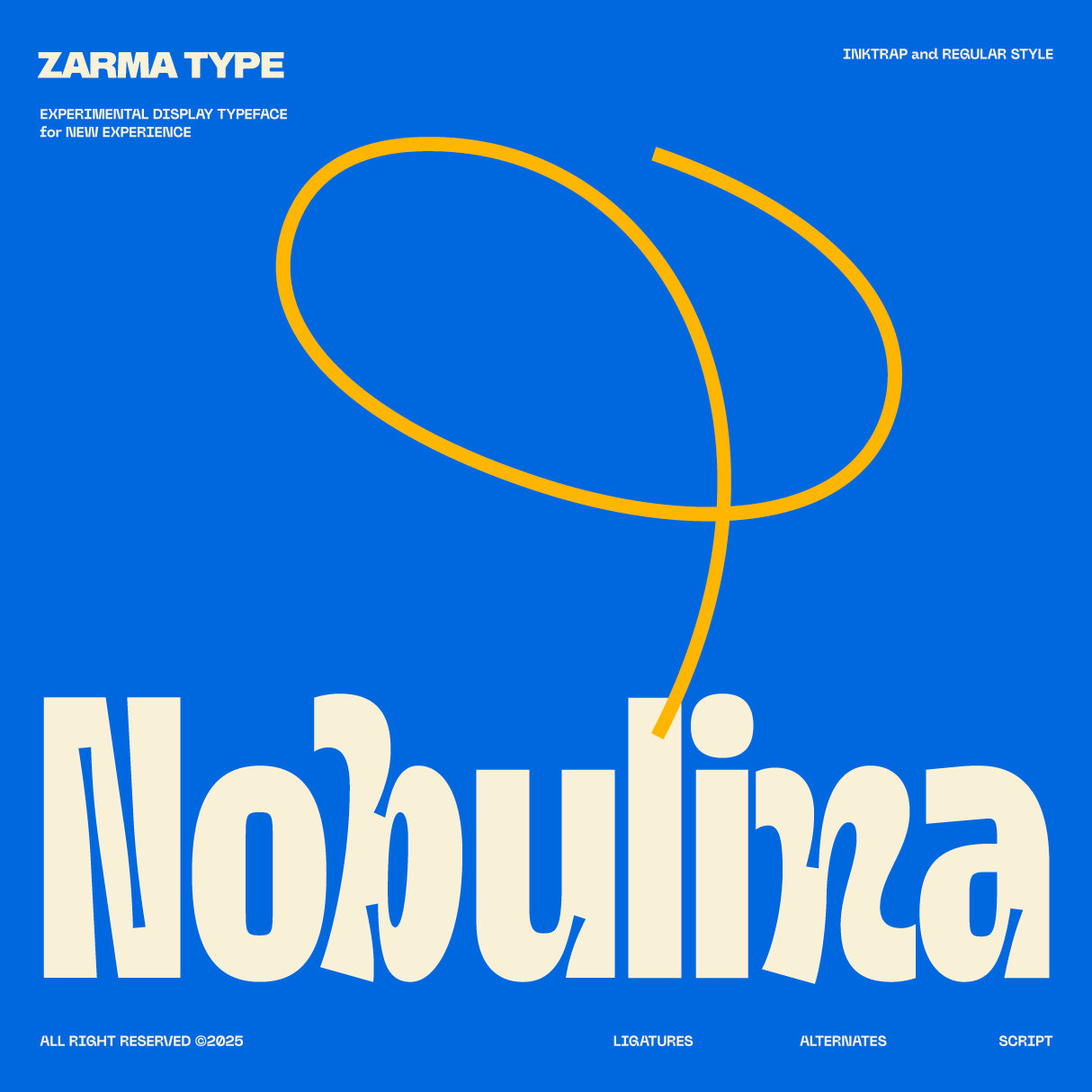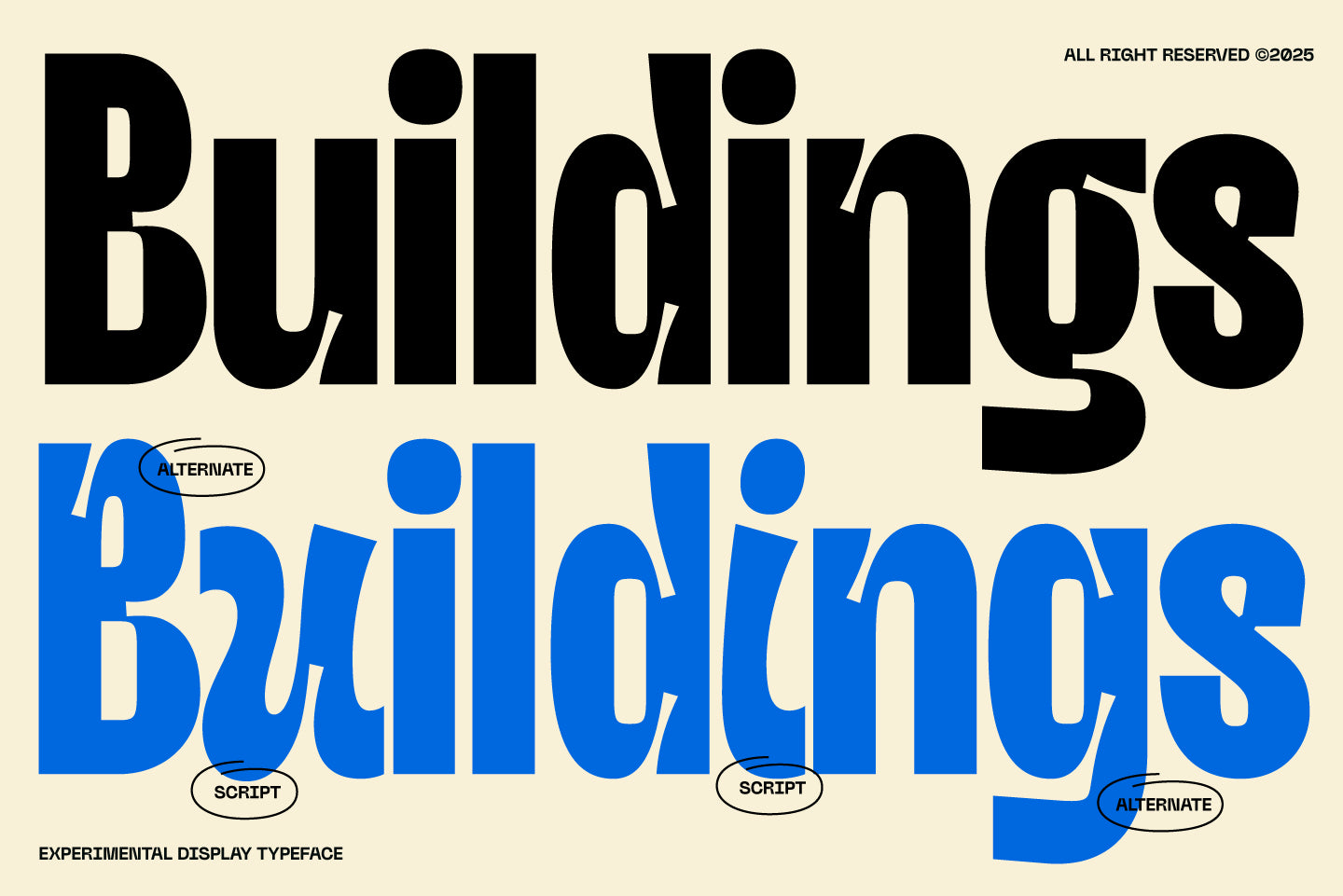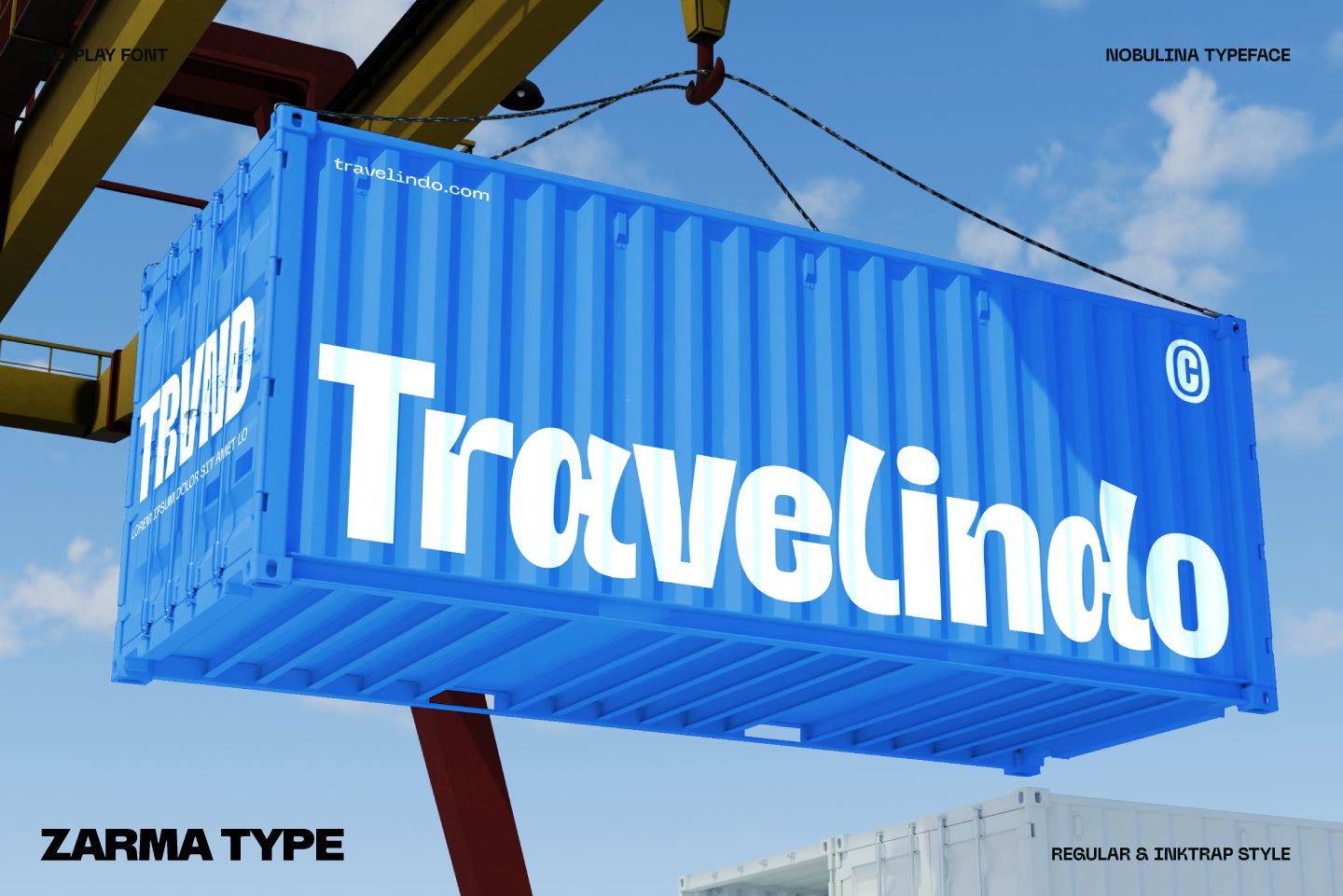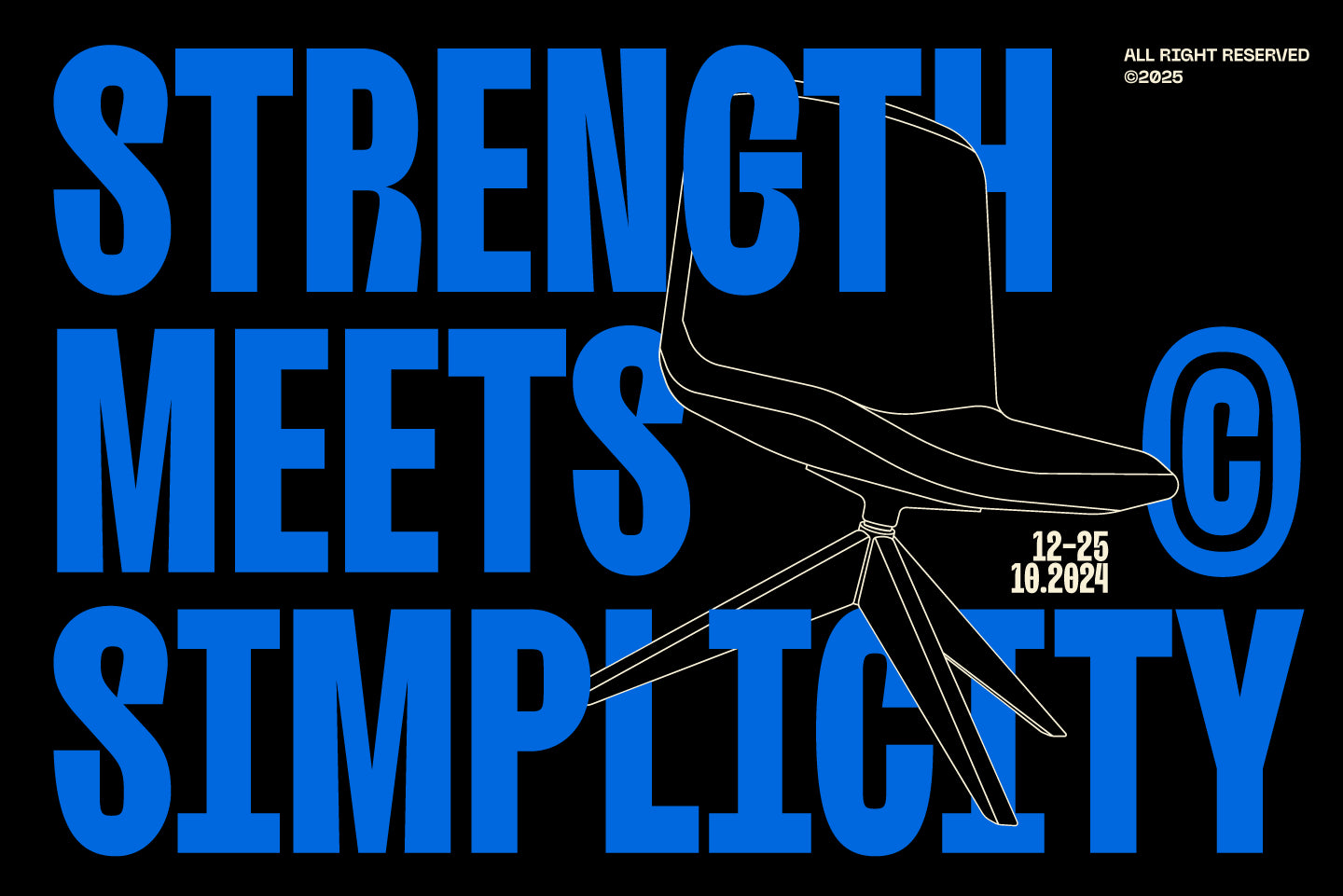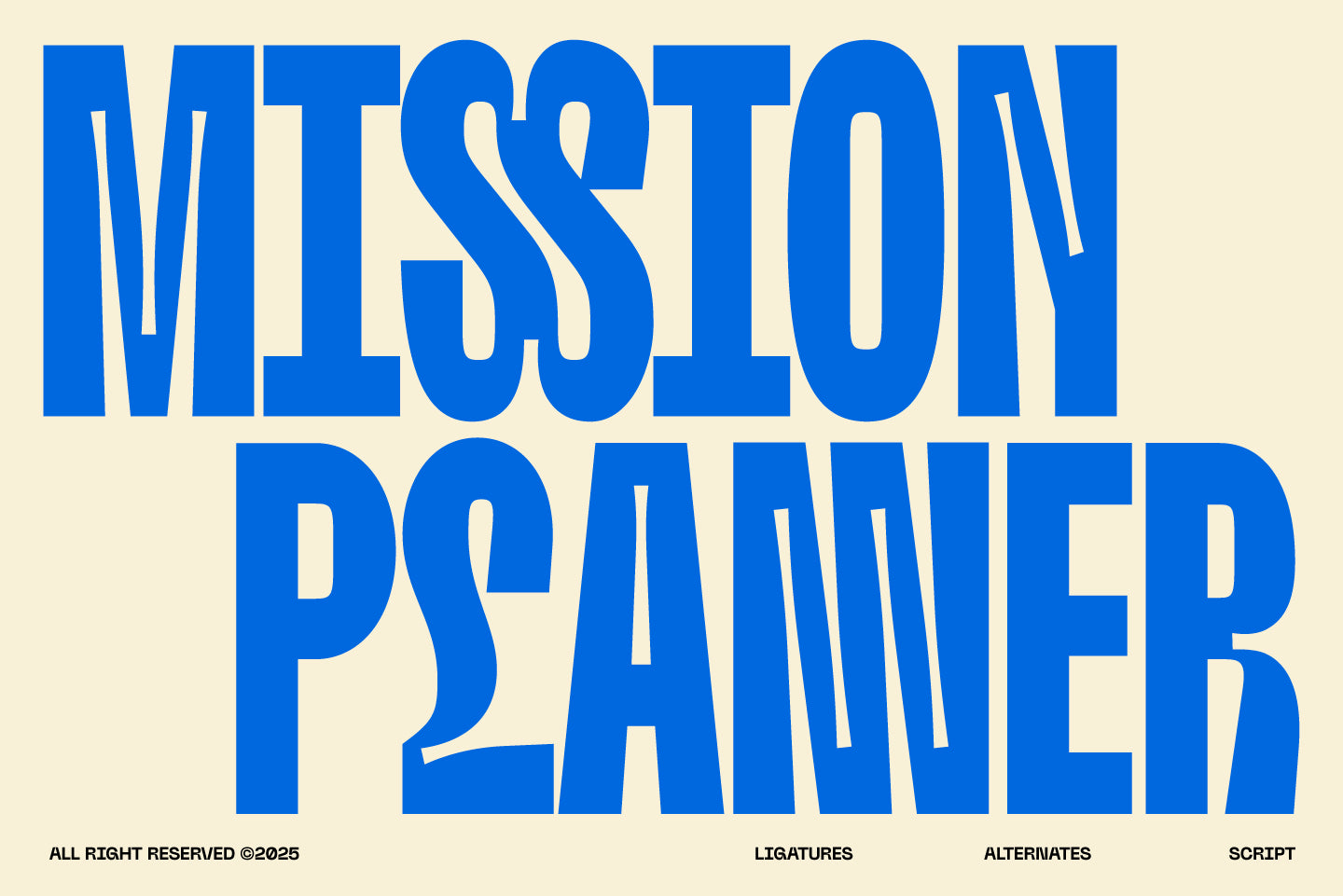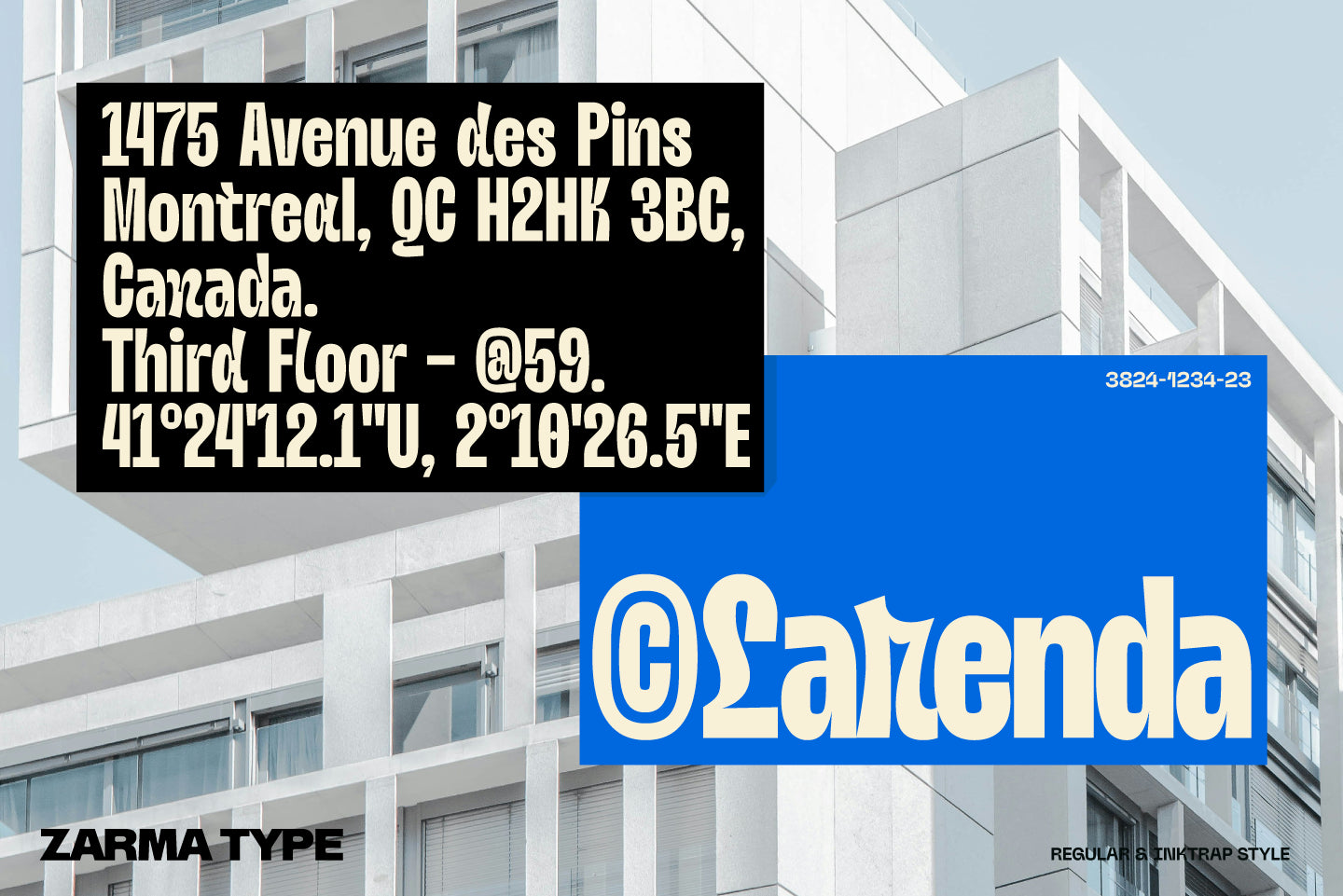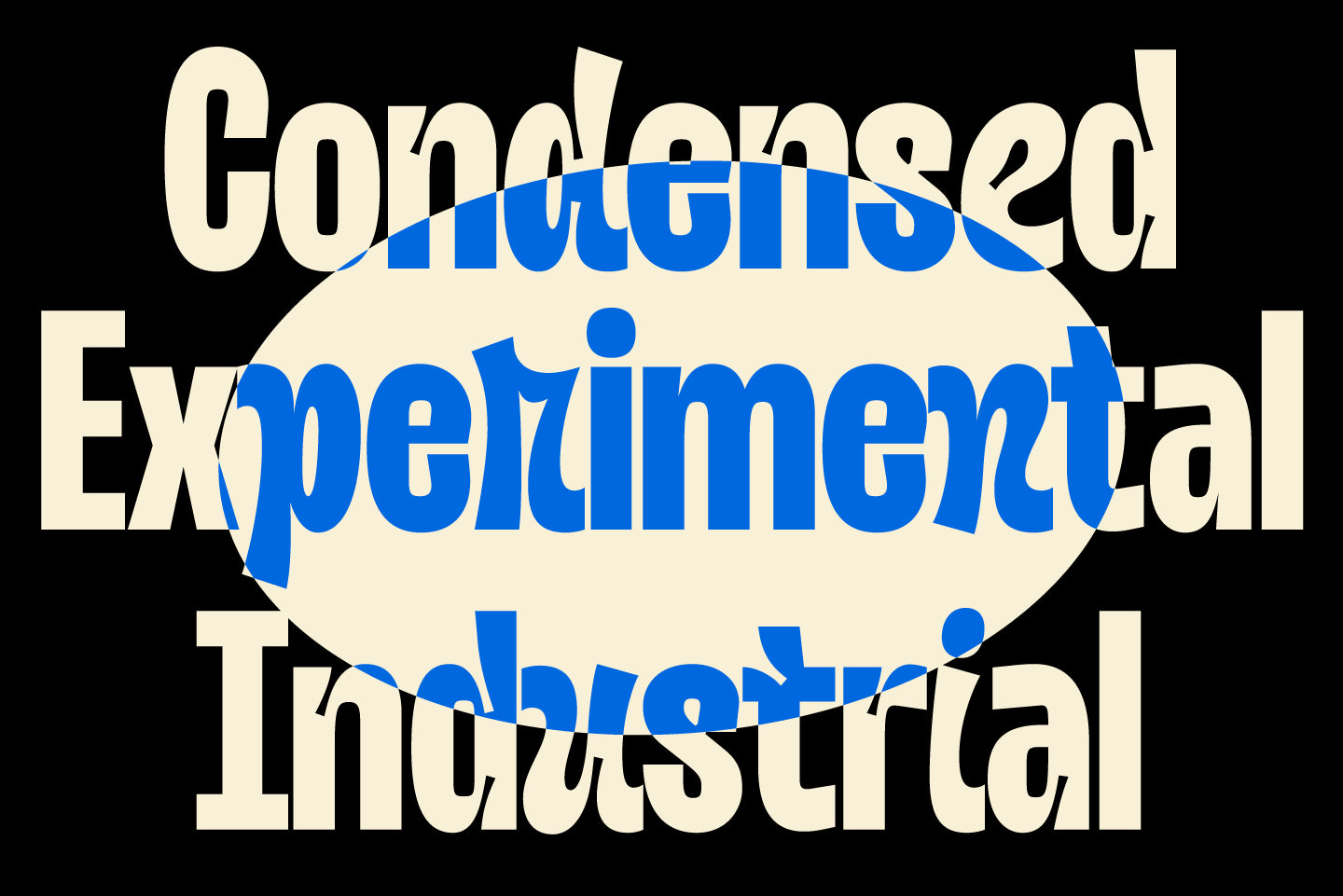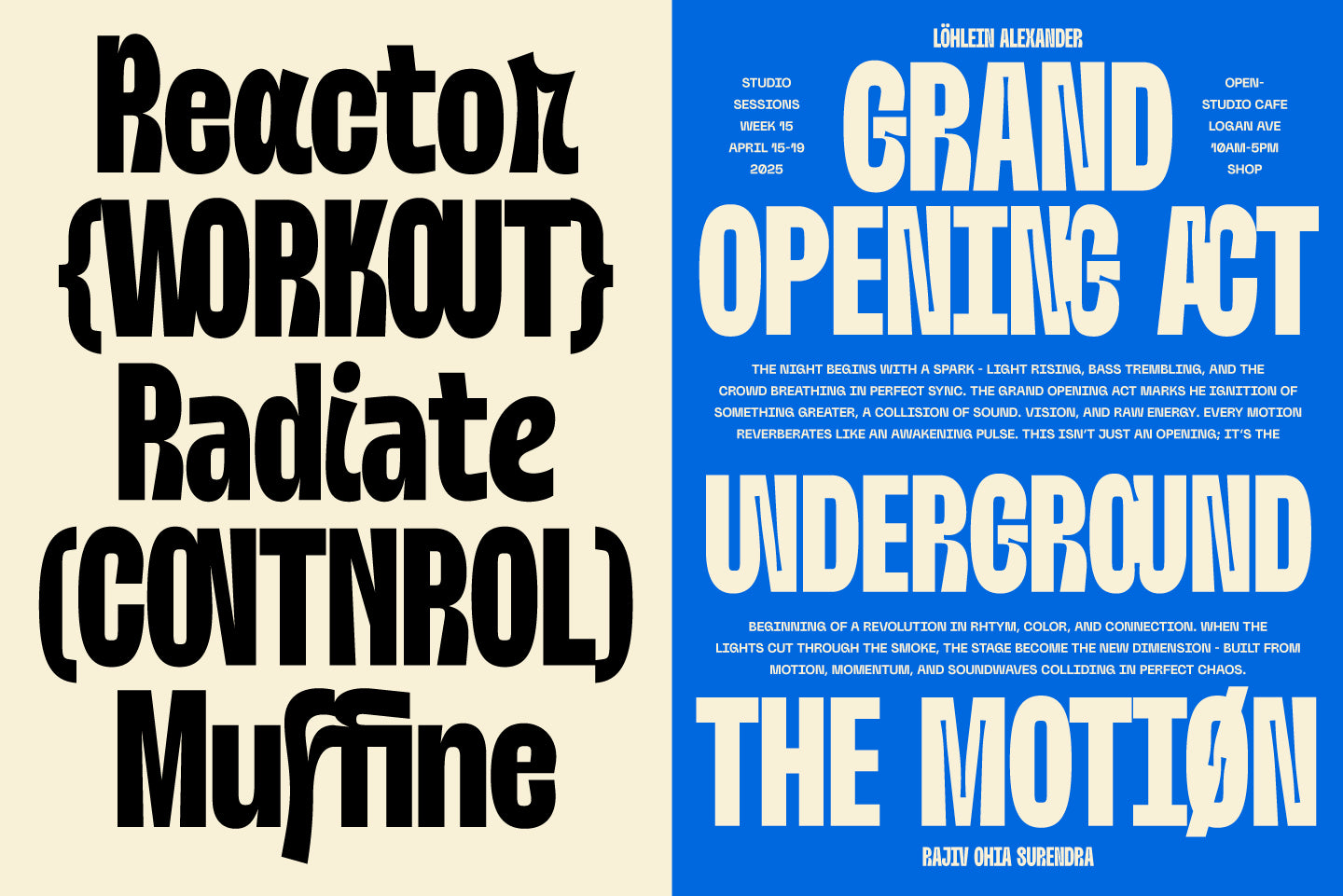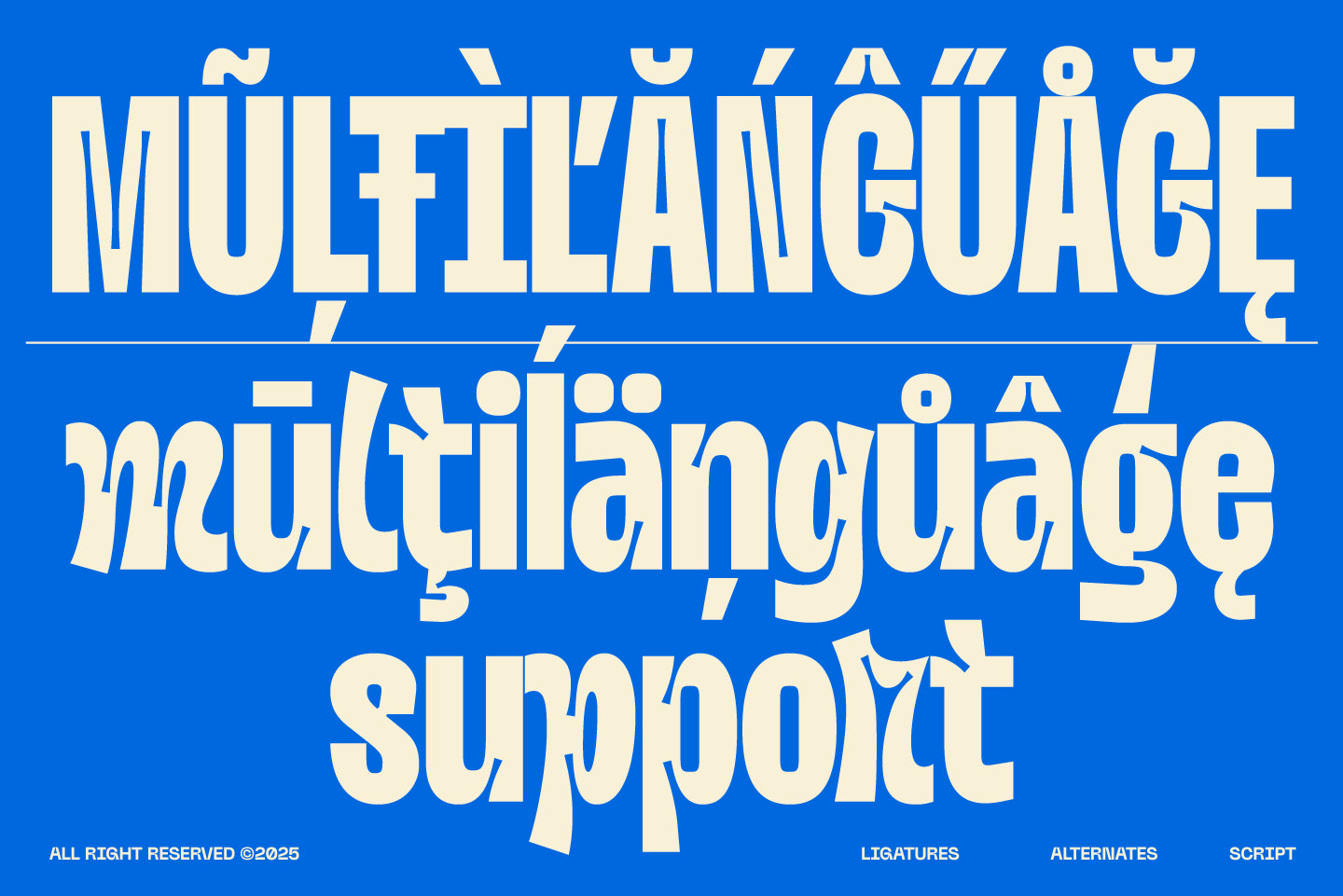
Nobulina Font
Nobulina is an experimental Display Font that combines the bold precision of a Condensed Sans with the expressive flow of a Script Font, creating a distinctive type system that balances industrial structure and creative freedom. Featuring bold inktraps, high-contrast forms, and expressive letterforms, Nobulina is perfect for experimental branding, brutalist posters, editorial headlines, album covers, tech event visuals, futuristic packaging, urban signage, and typography-driven layouts that demand attention.
Built for designers who love pushing creative boundaries, Nobulina includes both Condensed Sans and Script styles, uppercase and lowercase characters, numbers, punctuation, 60+ discretionary ligatures, standard ligatures, stylistic alternates, PUA Encoded Characters, and Multilingual Support. Whether you're creating layered identities, breaking traditional grid systems, or exploring bold contemporary typography, Nobulina delivers the perfect blend of technical precision, expressive character, and modern versatility.
Nobulina Font is an experimental display typeface that merges the bold characteristics of a condensed sans-serif with the fluidity of a script font. It includes both condensed sans and script styles, uppercase and lowercase characters, numbers, punctuation, over 60 discretionary ligatures, standard ligatures, stylistic alternates, PUA encoded characters, and multilingual support.